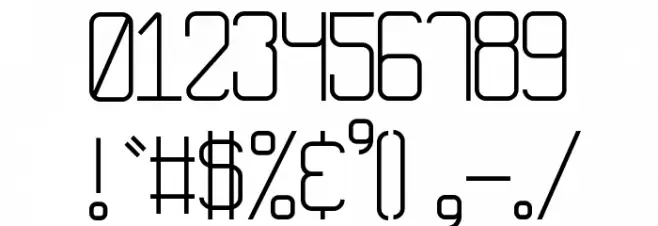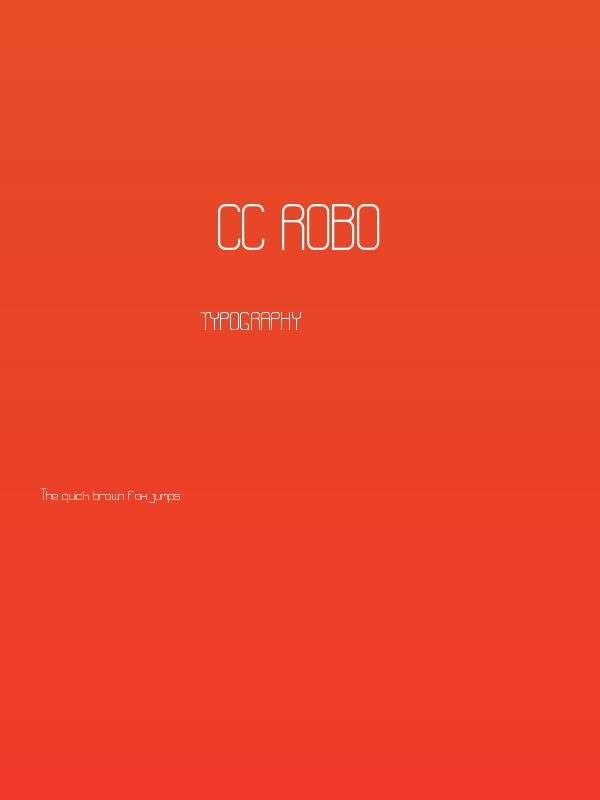
CC Robo Font
CC Robo Description
This font features a modern, geometric design with clean, rounded edges and a consistent line weight throughout. The characters are constructed with a monolinear stroke, giving it a sleek and futuristic appearance. The uppercase and lowercase letters maintain a uniform height, contributing to a cohesive and orderly look. The numerals and special characters follow the same design principles, ensuring a harmonious overall style. The font's minimalistic and technical aesthetic makes it suitable for contemporary design projects.
| Proposed Projects | Ideal for tech branding, digital interfaces, modern posters, and futuristic design themes. |